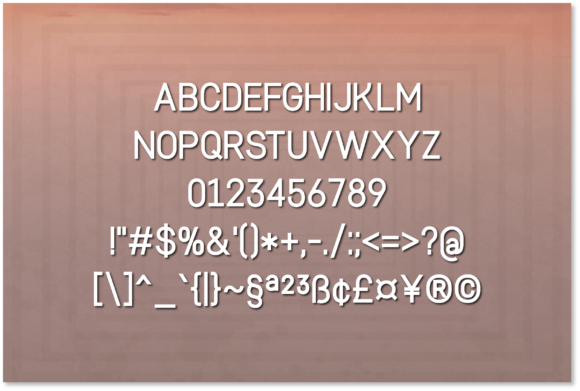
Introducing Clarsly Extra Bold Font: Elevate Your Designs with Timeless Elegance
In the world of typography, fonts play a crucial role in conveying the message and aesthetic of a design. For designers and crafters seeking a versatile and elegant sans serif font, Clarsly Extra Bold is an exceptional choice. With its minimalist and modern approach, Clarsly is perfect for a wide range of applications, from body text to headlines, and is guaranteed to add a timeless touch to your next design project.
The Characteristics of Clarsly Extra Bold Font
Clarsly Extra Bold is part of the Clarsly font family, known for its clean lines, simple shapes, and uncluttered appearance. This font is characterized by its:
- Minimalist and Modern Design: Clarsly Extra Bold boasts a sleek and contemporary look, making it perfect for designs that require a fresh and modern feel.
- Elegant Appearance: Despite its bold nature, Clarsly Extra Bold exudes elegance, allowing it to complement a wide range of design styles, from luxury brands to creative projects.
- Versatility: This font is incredibly versatile, suitable for both body text and headlines, making it an excellent addition to any design project.
- Timeless Touch: Clarsly Extra Bold’s classic design ensures that your projects will remain stylish and relevant for years to come.
Applications of Clarsly Extra Bold Font
The versatility of Clarsly Extra Bold font makes it suitable for various design applications, including:
- Branding and Logo Design: Create a lasting impression with Clarsly Extra Bold’s bold and elegant appearance, perfect for logos and brand identities.
- Print Design: Use Clarsly Extra Bold in brochures, posters, and business cards to add a touch of sophistication and modernity.
- Digital Design: Clarsly Extra Bold is ideal for website headers, social media graphics, and digital advertising, ensuring your online presence is both stylish and professional.
- Packaging Design: Add a premium feel to your product packaging with Clarsly Extra Bold’s elegant and bold design.
Why Choose Clarsly Extra Bold Font?
With so many fonts available, why choose Clarsly Extra Bold for your design projects? Here are a few compelling reasons:
- Legibility: Clarsly Extra Bold’s clear and simple design ensures that your text is easy to read, even at smaller font sizes.
- Uniqueness: While Clarsly Extra Bold is elegant and timeless, it also has a unique character that sets it apart from more traditional bold fonts.
Tips for Using Clarsly Extra Bold Font Effectively
To get the most out of Clarsly Extra Bold font, consider the following tips:
- Pair with Complementary Fonts: Combine Clarsly Extra Bold with lighter weights of the same font or complementary fonts to create visual hierarchy and add depth to your design.
- Use for Headlines and Titles: Take advantage of Clarsly Extra Bold’s bold nature by using it for headlines and titles, making your content stand out.
- Experiment with Colors and Textures: Don’t be afraid to experiment with different colors and textures to add an extra layer of creativity to your design.
In conclusion, Clarsly Extra Bold font is an exceptional choice for designers and crafters seeking a versatile, elegant, and timeless sans serif font. Its minimalist and modern design, combined with its bold and elegant appearance, makes it perfect for a wide range of design applications. By incorporating Clarsly Extra Bold into your design projects, you’ll be able to create stylish, professional, and memorable designs that stand the test of time.